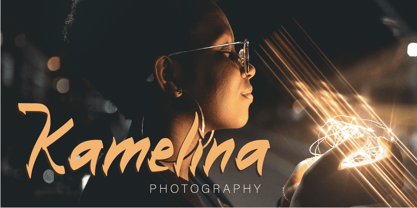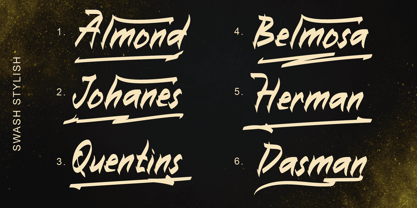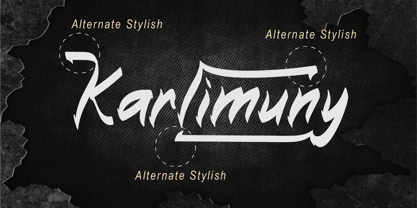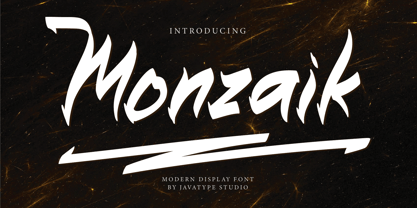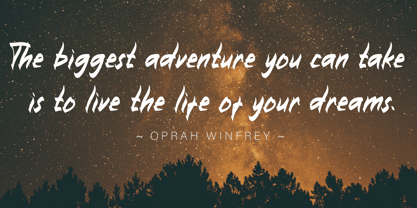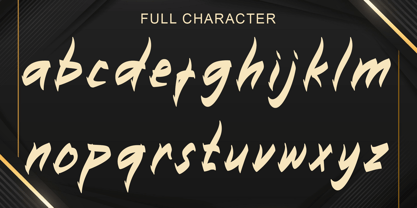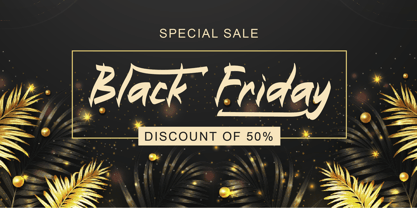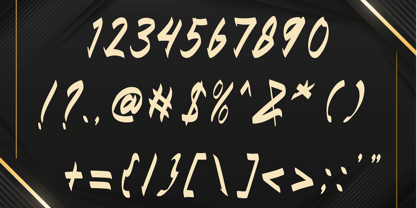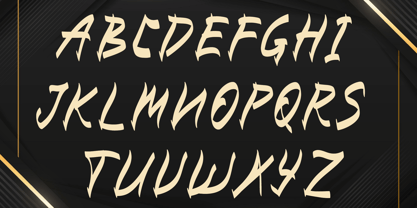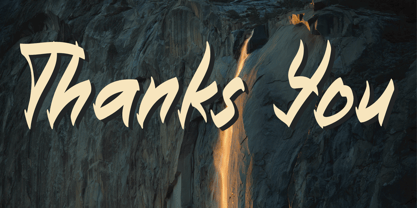
Monzaik
The Monzaik Font Family was designed by Tio Yulianto and published by Javatypestd. Monzaik contains 1 styles.
Introducing Monzaik, a striking display font that showcases a unique personality and style. This font comes alive with its daring italicized features and adds an edge with deliberately executed strokes, contributing to an overall spine-chilling perception. With Monzaik at your fingertips, you can add that distinct handwriting flair to anything from professional photography, watermarks, and gripping social media posts, to inspirational quotes and eye-catching book covers.
Monzaik would be perfect for photography, watermark, social media posts, quotes, cover book, tshirt, branding, logos & branding, invitation, product designs, label, stationery, product packaging, special events or anything that need handwriting taste.